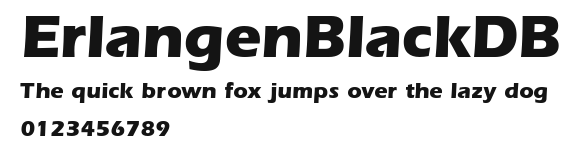
ErlangenBlackDB Preview
About ErlangenBlackDB.ttf
ErlangenBlackDB.ttf is a modern, elegant sans-serif font designed for ultimate readability and visual harmony. Perfect for branding, headlines, web design, and print materials.